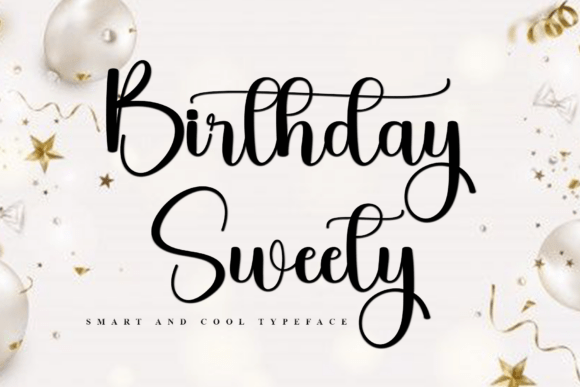
Introducing Birthday Sweety Font: The Ultimate Festive Typeface for Your Holiday Designs
Are you looking for a font that embodies the spirit of the holiday season? Do you want to add a touch of magic to your designs, greeting cards, and gift tags? Look no further than the Birthday Sweety Font, a festive and merry typeface that is sure to bring a cheerful and nostalgic ambiance to your words.
What is Birthday Sweety Font?
Birthday Sweety Font is a decorative typeface that is specifically designed to capture the essence of the holiday season. With its whimsical flair and enchanting elements, this font is perfect for anyone looking to add a touch of festivity to their designs. Whether you’re creating greeting cards, gift tags, or holiday-themed projects, Birthday Sweety Font is the ideal choice.
Key Features of Birthday Sweety Font
- Decorative Elements: Birthday Sweety Font features decorative elements that are sure to add a touch of magic to your designs. From intricate swirls to festive symbols, this font has everything you need to create stunning holiday-themed projects.
- Whimsical Flair: This font has a whimsical flair that is sure to bring a smile to your face. With its playful and enchanting design, Birthday Sweety Font is perfect for creating festive and fun designs.
Uses of Birthday Sweety Font
Birthday Sweety Font is a versatile typeface that can be used for a variety of purposes. Here are some of the most popular uses of this font:
- Greeting Cards: Create stunning holiday greeting cards with Birthday Sweety Font. This font is perfect for creating festive and fun designs that are sure to impress your friends and family.
- Gift Tags: Add a touch of magic to your gift tags with Birthday Sweety Font. This font is perfect for creating custom gift tags that are sure to make your gifts stand out.
- Holiday-Themed Projects: Birthday Sweety Font is perfect for creating holiday-themed projects, such as Christmas decorations, Halloween designs, and Easter cards.
Benefits of Using Birthday Sweety Font
There are many benefits to using Birthday Sweety Font for your holiday designs. Here are some of the most significant advantages:
- Unique and Festive Designs: Birthday Sweety Font allows you to create unique and festive designs that are sure to impress your friends and family.
- High-Quality Design: Birthday Sweety Font features a high-quality design that is sure to bring a touch of magic to your designs.
Tips for Using Birthday Sweety Font
Here are some tips for using Birthday Sweety Font:
- Experiment with Different Sizes: Try experimenting with different sizes to see how Birthday Sweety Font looks in different contexts.
- Pair with Other Fonts: Consider pairing Birthday Sweety Font with other fonts to create a unique and interesting design.
- Use Decorative Elements: Don’t be afraid to use the decorative elements of Birthday Sweety Font to add a touch of magic to your designs.
In conclusion, Birthday Sweety Font is a festive and merry typeface that is perfect for adding a touch of magic to your holiday designs. With its decorative elements, whimsical flair, and PUA encoding, this font is sure to bring a cheerful and nostalgic ambiance to your words. Whether you’re creating greeting cards, gift tags, or holiday-themed projects, Birthday Sweety Font is the ideal choice.